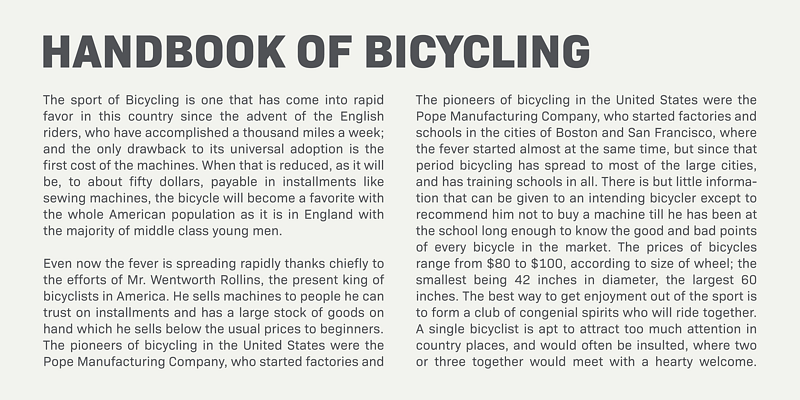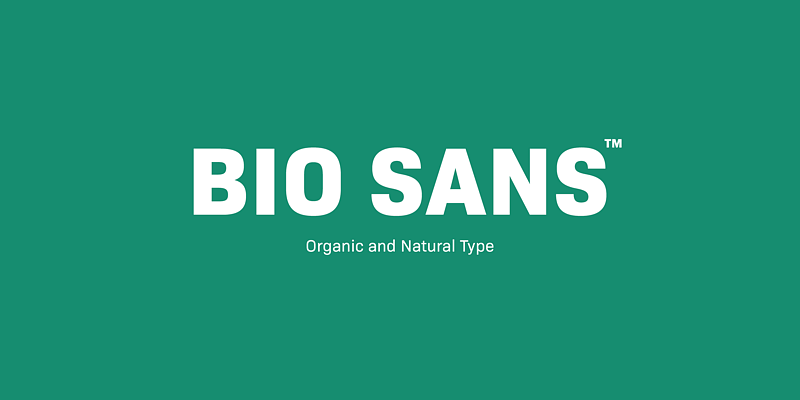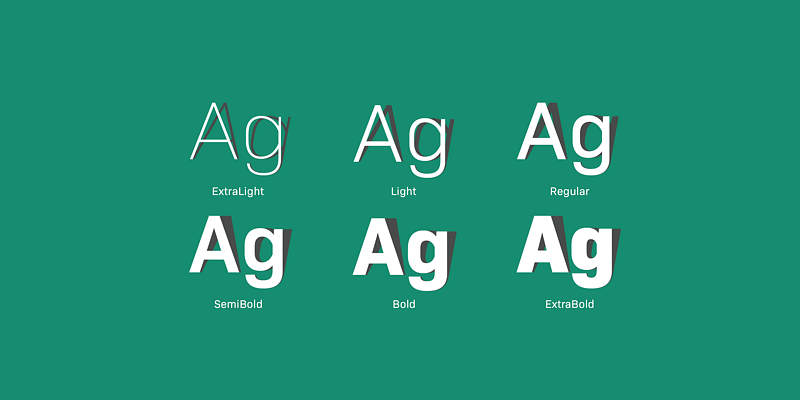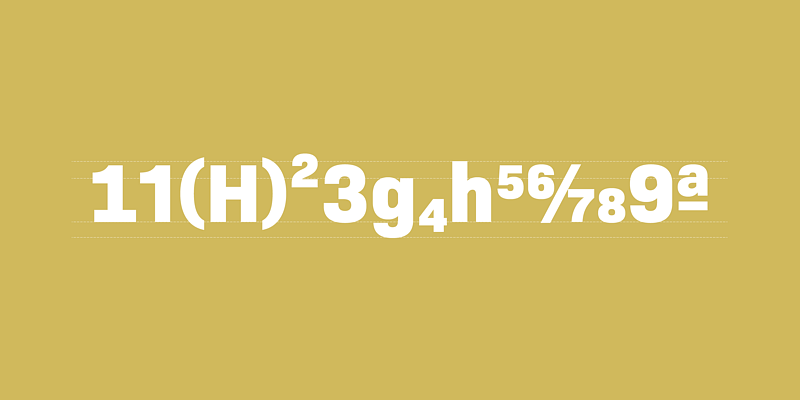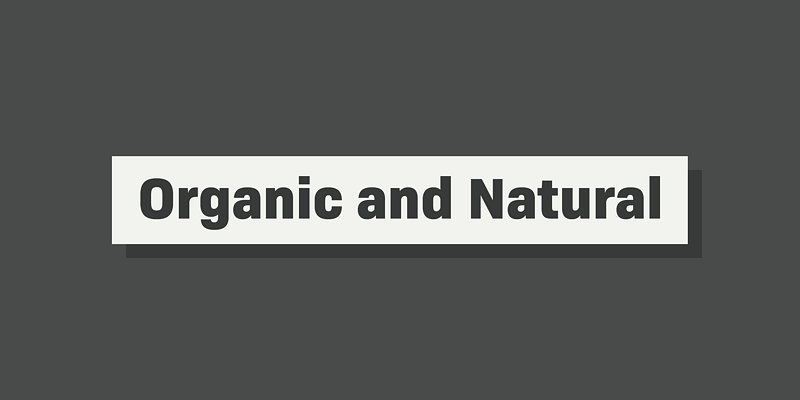
Bio Sans is a super neutral sans-serif family. The basic concepts of this family are neutral, natural, minimal, harmless, super-flat, transparent, and legible.